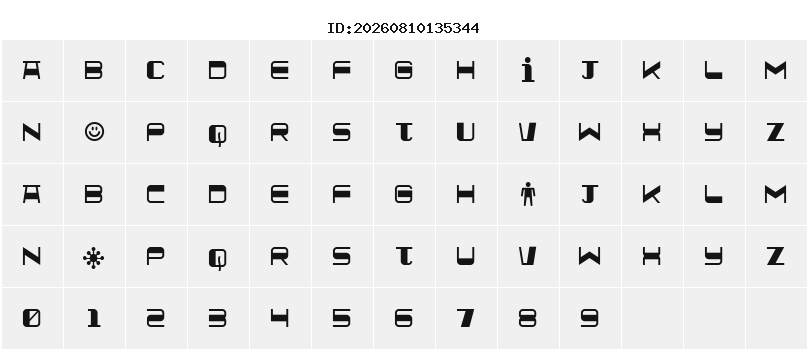
Quickometer Preview
• Font Name: Quickometer
• Full Font Name: Quickometer
About Quickometer.ttf
Quickometer.ttf is a modern, elegant sans-serif font designed for ultimate readability and visual harmony. Perfect for branding, headlines, web design, and print materials.